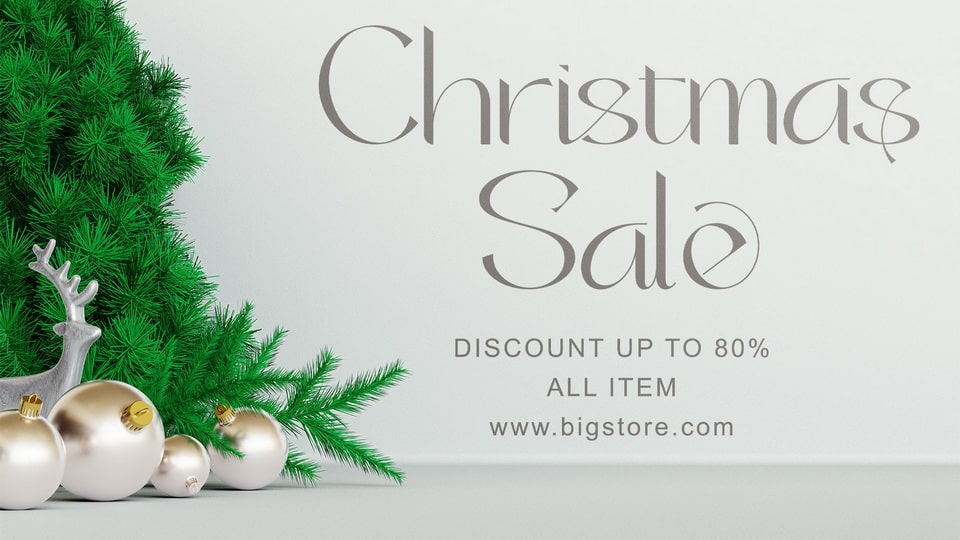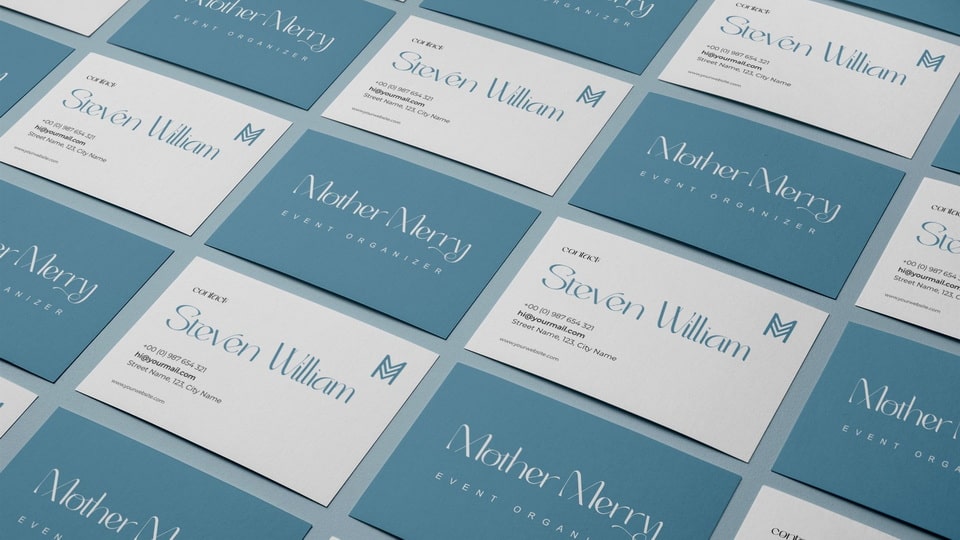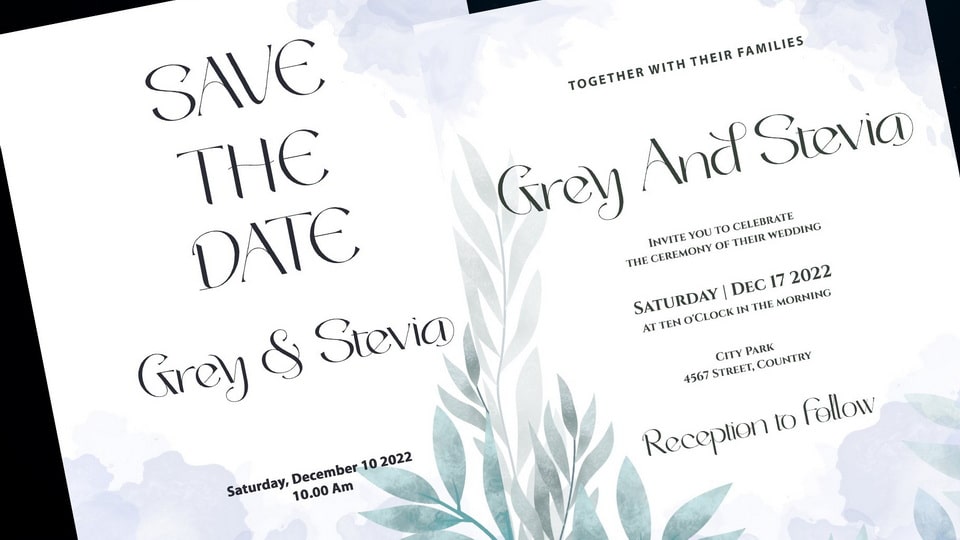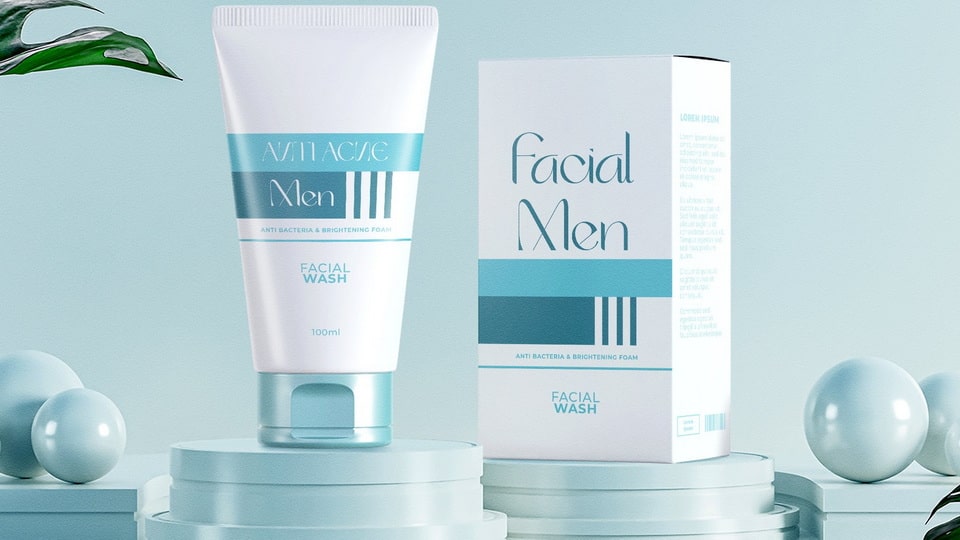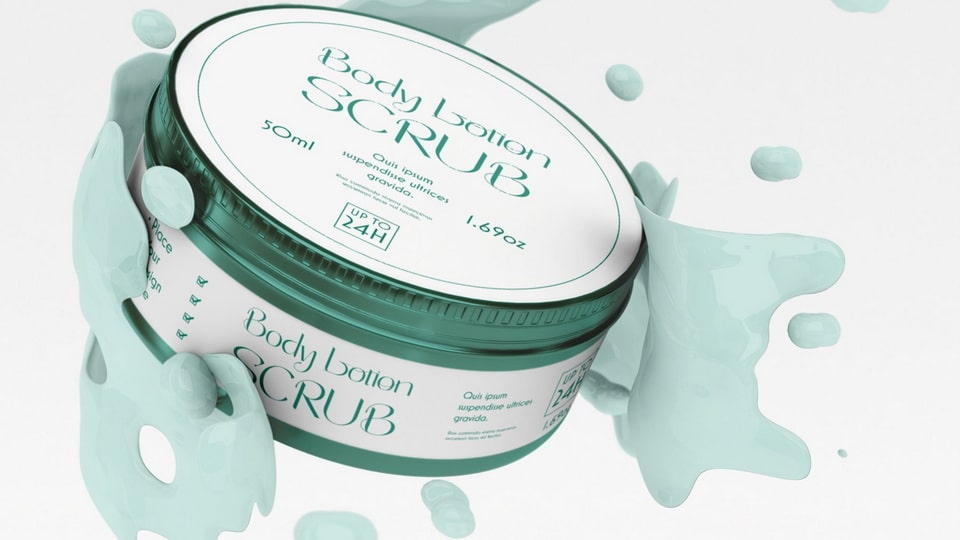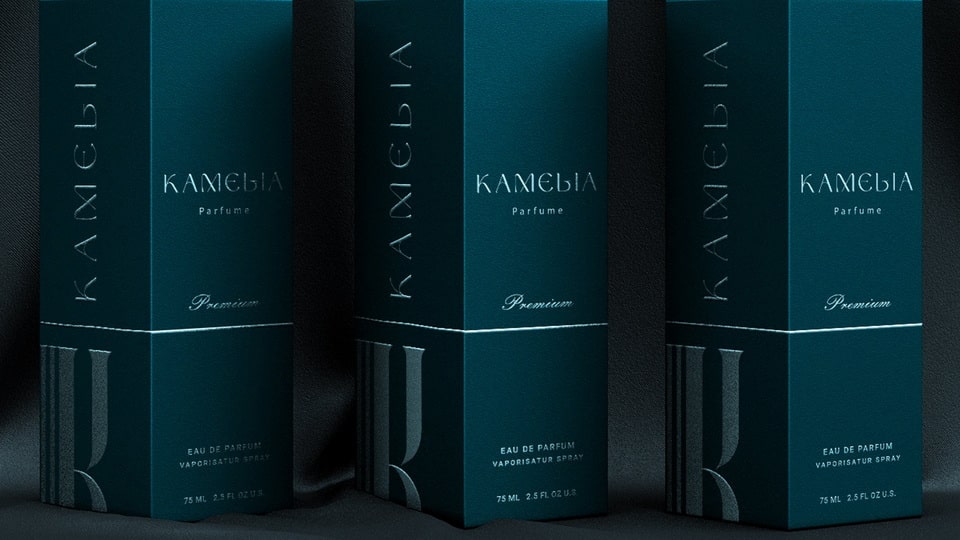
Christmas Elegant is an elegant and delicate serif typeface with a unique style and modern look. Contemporary and fresh, it is perfect for any design you wish to create, including branding, wedding design, fashion, advertising, editorial design and many more.